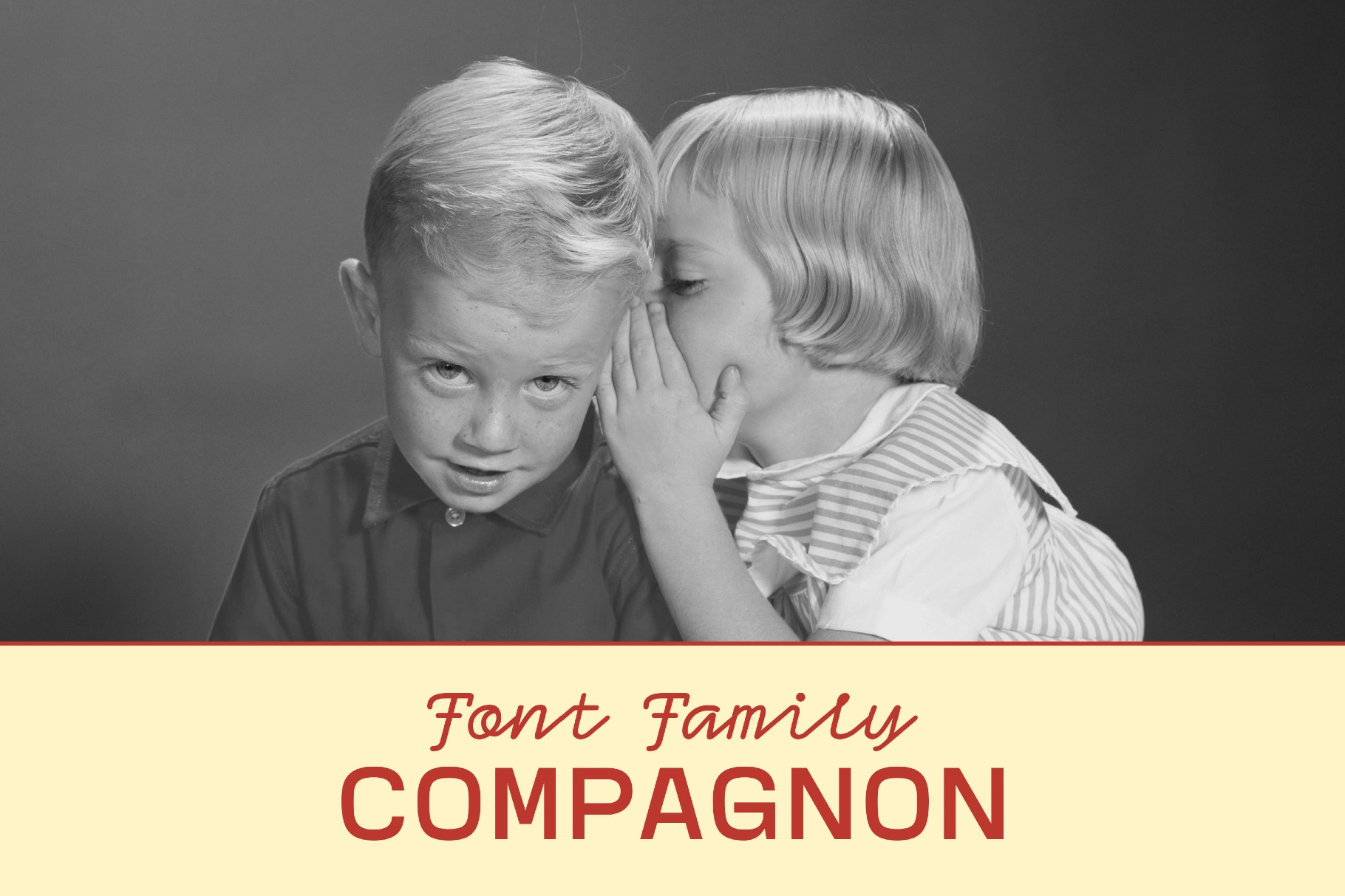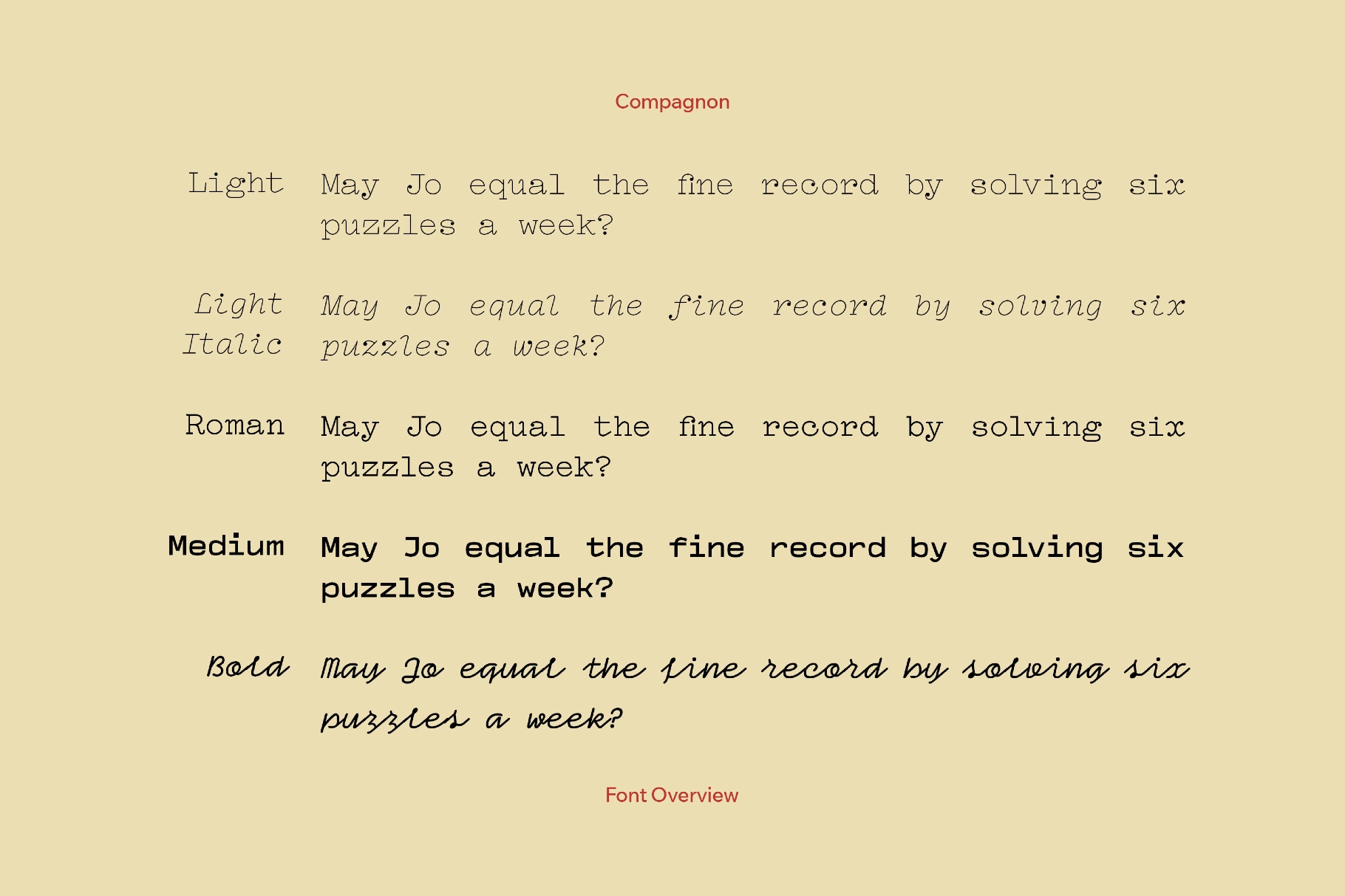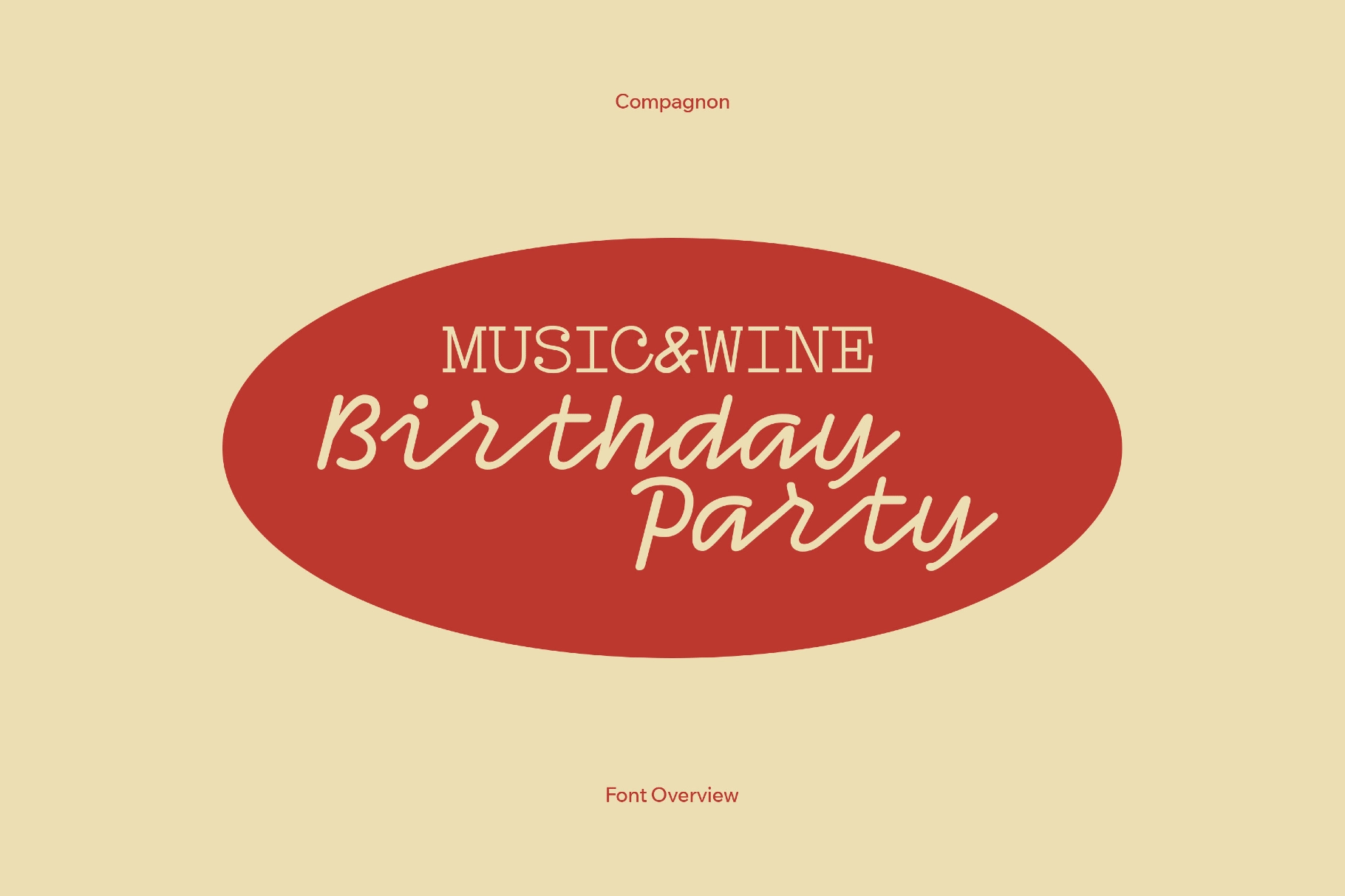
Compagnon Font Family
Compagnon family bundles a set of friendly, slightly eccentric voices borrowed from schoolbook slabs and handwritten signage. Rounded slabs, loose spacing, open counters, and tidy curves keep reading smooth and give an easy, conversational feel.
The family is at home in indie brand identities, café menus, packaging for food and lifestyle products, posters for festivals and cultural events, and editorial layouts. Use it for headlines, annotations, magazine covers, and gallery invitations.